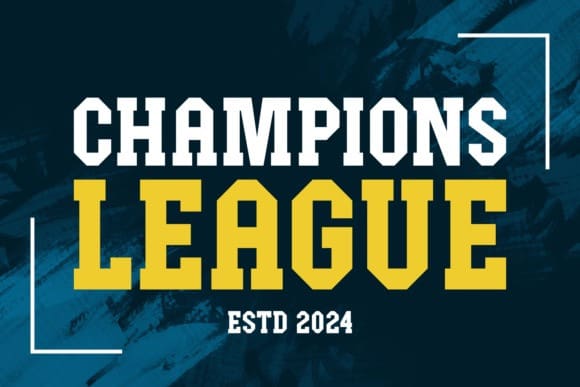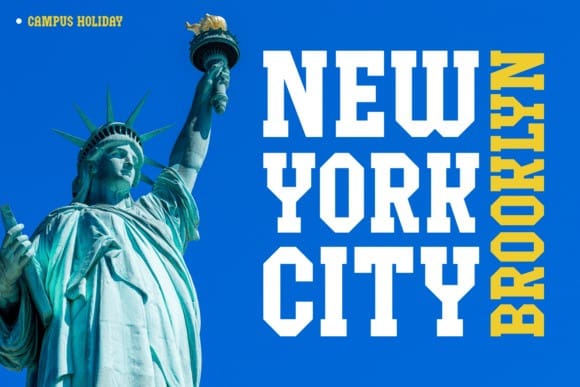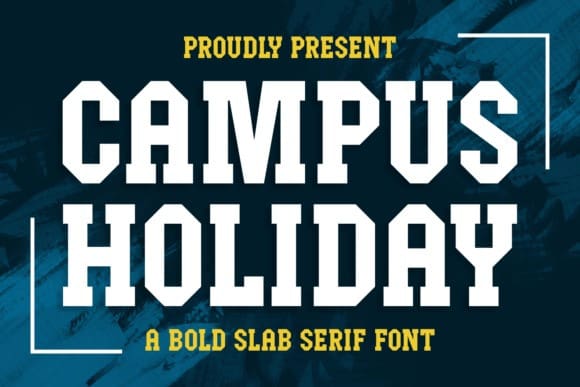
Campus Holiday Font
Campus Holiday Font, is a bold and robust slab serif font. Its strong, confident characters bring a sense of impact and clarity to your text. Perfect for creating bold headlines or adding a touch of strength to your design, Campus Holiday is the ideal choice for a variety of projects. Let this font infuse your work with a bold and festive spirit, making every message stand out with confidence.